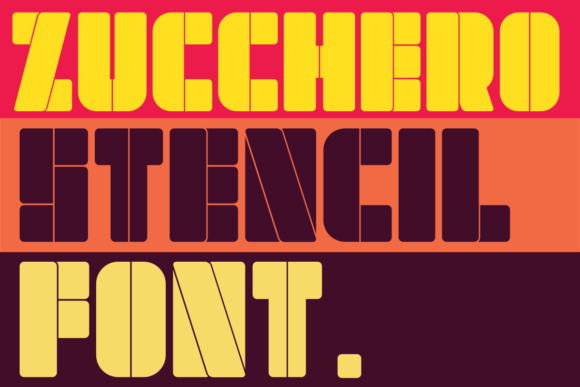
Zucchero Stencil: A Gateway to Unforgettable Typography
In the vast digital landscape, where words take center stage, there exists a font with an allure that transcends the ordinary. Zucchero Stencil, a masterpiece of typographic art, beckons you to unlock a world of captivating designs that resonate with your audience.
Immerse yourself in a realm of creativity where urban grit meets artistic grace. Zucchero Stencil stands apart as a display font, its bold strokes and intricate cutouts etching themselves into the hearts and minds of your readers. Each letter is a testament to meticulous craftsmanship, effortlessly blending the raw energy of street art with the elegance of timeless design.
Whether you're a seasoned designer or just starting your creative journey, Zucchero Stencil is your perfect companion. Its versatility knows no bounds, seamlessly adapting to branding projects, captivating headings, enchanting wedding designs, and everything in between. Unleash your imagination and witness how Zucchero Stencil transforms your ideas into unforgettable visual experiences.
Zucchero Stencil: Your Stencil Cricut Ally
For those who seek a font that complements their Stencil Cricut projects, Zucchero Stencil emerges as the ultimate choice. Its crisp lines and sharp edges render flawlessly on your Cricut machine, ensuring precise cuts and stunning results. Bring your crafting dreams to life with Zucchero Stencil as your trusted ally, transforming ordinary materials into masterpieces that exude both personality and sophistication.
Embark on a Typographic Journey Like No Other
Zucchero Stencil is an invitation to embark on a typographic odyssey, leaving behind the mundane and embracing the extraordinary. With its distinctive charm, it elevates your designs, capturing attention and igniting conversations. Whether you're creating logos that demand remembrance, labels that speak volumes, or invitations that evoke anticipation, Zucchero Stencil is your ultimate storyteller.
Discover the Zucchero Stencil Difference
Zucchero Stencil isn't just a font; it's a gateway to a world where typography takes center stage. Its versatility, captivating style, and compatibility with Stencil Cricut machines make it an essential tool for designers of all levels.
Don't settle for ordinary fonts that fade into oblivion. Embrace Zucchero Stencil, and let your designs dance with individuality. Experience the transformative power of typography as you unlock a new realm of creative possibilities.